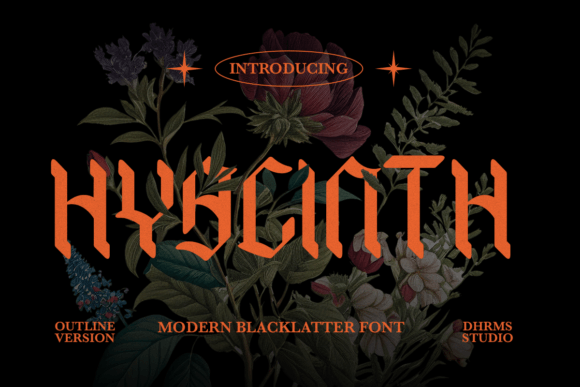
Introducing Hyacinth, a modern blackletter font that exudes elegance, boldness, and uniqueness. Embark on a typographic journey with a font that captures the essence of contemporary design.
Hyacinth is adorned with a touch of rounded style, adding a distinctive charm to your creative endeavors. Its bold and captivating presence commands attention, inspiring you to create masterpieces that stand out from the ordinary.
Imagine crafting headings that demand a second glance, flyers that resonate with sophistication, greeting cards that carry a heartfelt message, and product packaging that beckons customers with its allure. Hyacinth is the perfect partner for creating book covers that leave a lasting impression and printed quotes that resonate with emotion.
Elevate your logotypes and apparel designs with Hyacinth's distinct character. Let your artistry shine on album covers, transforming them into visual masterpieces. The possibilities are boundless, empowering you to create designs that captivate and inspire.
Hyacinth's versatility knows no bounds. Its multi-language support ensures that your creations can reach a global audience, transcending linguistic barriers. With alternative characters and ligatures at your disposal, you can explore endless creative avenues, expressing your individuality in every project.
Embrace Hyacinth, a font that ignites your imagination and propels your designs to the forefront of creativity.
Dare to be unique. Dare to be bold. Dare to leave an unforgettable mark with Hyacinth.